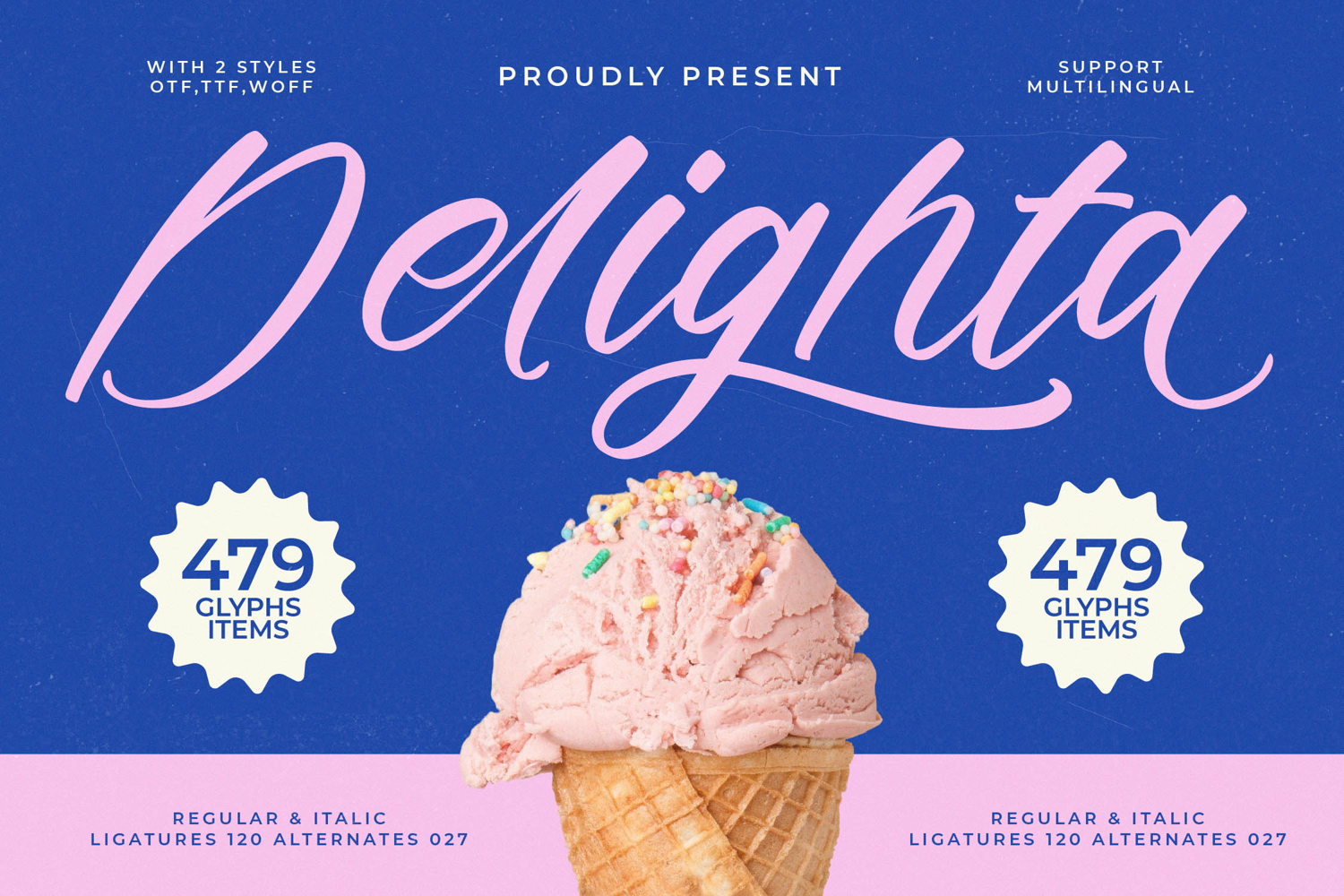
Delighta - Modern Handwritten Font Script
Elevate your designs with the irresistible charm of authentic handwritten elegance. Introducing Font Delighta - Modern Handwritten Font Script, a truly captivating typeface blending the warmth of natural script with a sophisticated, contemporary aesthetic. Its graceful strokes and harmonious flow are crafted to imbue your projects with immediate personality and inviting allure, standing out with its subtle yet expressive appeal.